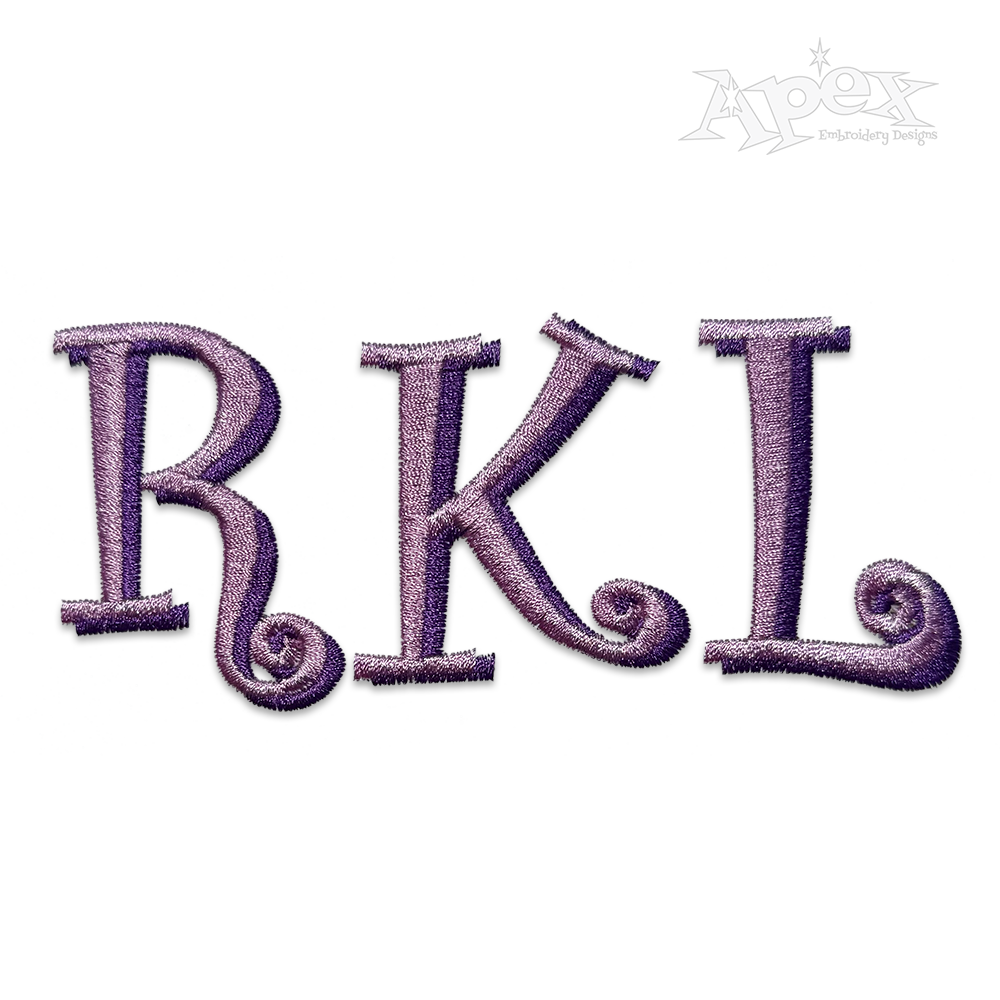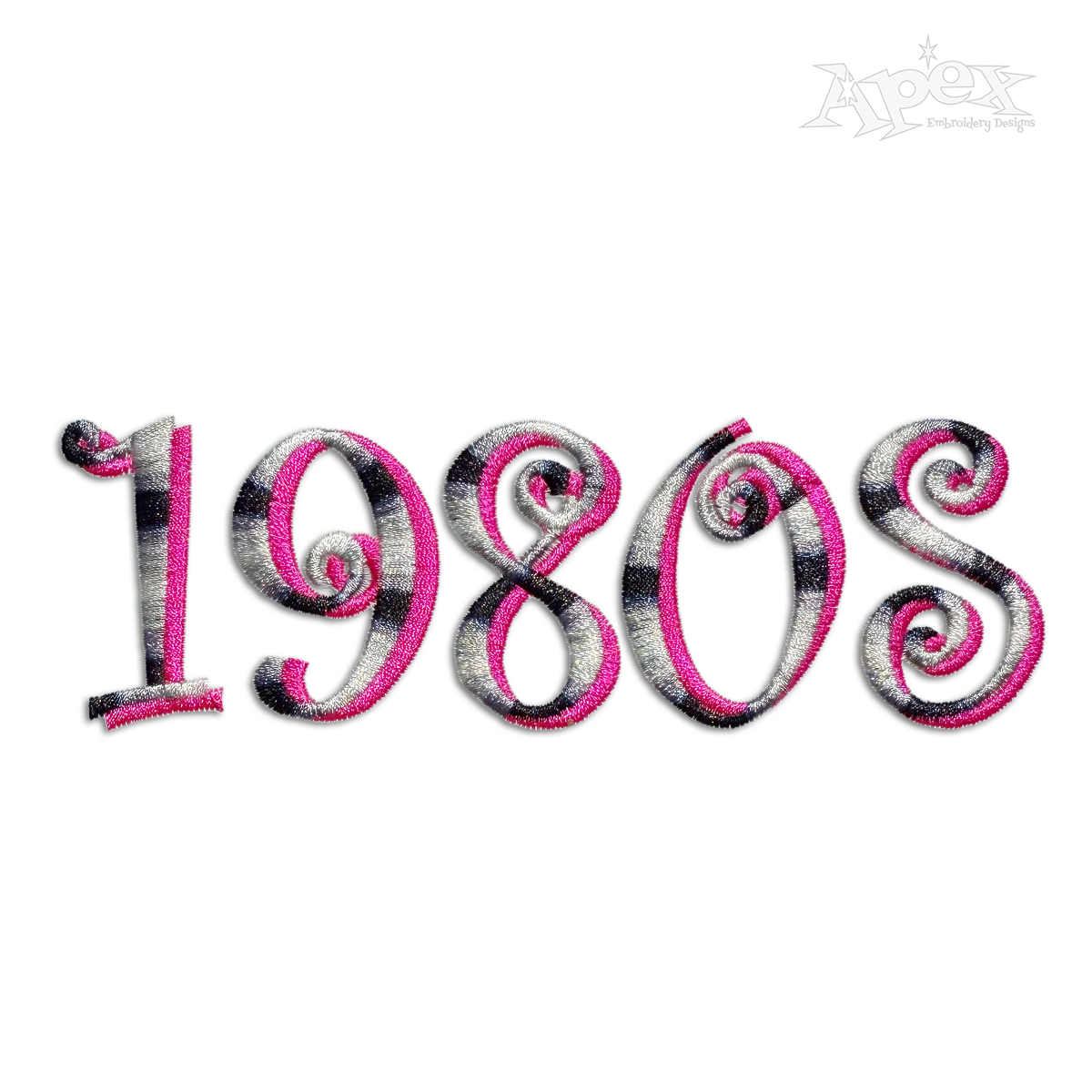
Curlz Embroidery Font Shadow
There is an infectious joy in embroidery that refuses to take itself too seriously, and our Curlz Shadow design was born from that very spirit of playfulness. Inspired by bouncing ribbons, hand-drawn party lettering, and the carefree exuberance of childhood memories, this alphabet takes the classic, swirling curl and gives it an eye-catching theatrical presence. By digitizing a secondary offset shadow beneath each twirling terminal and jaunty arch, we transformed a simple whimsical letterform into a layered, multi-dimensional celebration in thread that leaps off your fabric with vibrant energy.
Curlz Embroidery Font Shadow Craft & Letterform Details
Digitizing a font with exaggerated curls and an offset shadow presents a fascinating technical challenge: every spiral must retain its crisp shape without creating heavy, bulletproof stitch clumps where curves converge. In digitizing this two-color composition, we engineered the underlay of the background shadow to support fabric loft while avoiding excessive density beneath the main foreground letter. This ensures the finished embroidery stays remarkably soft and flexible rather than stiff and rigid.
The foreground satin stitches are dynamically angled to follow the natural, joyful sweep of each looping serif, letting light bounce across the rayon or polyester threads in harmony with the curve. Calibrated with built-in pull compensation, the primary letter settles precisely alongside its companion shadow, locking the two colors into seamless alignment for clean lines, lively motion, and flawless visual pop on every stitch-out.